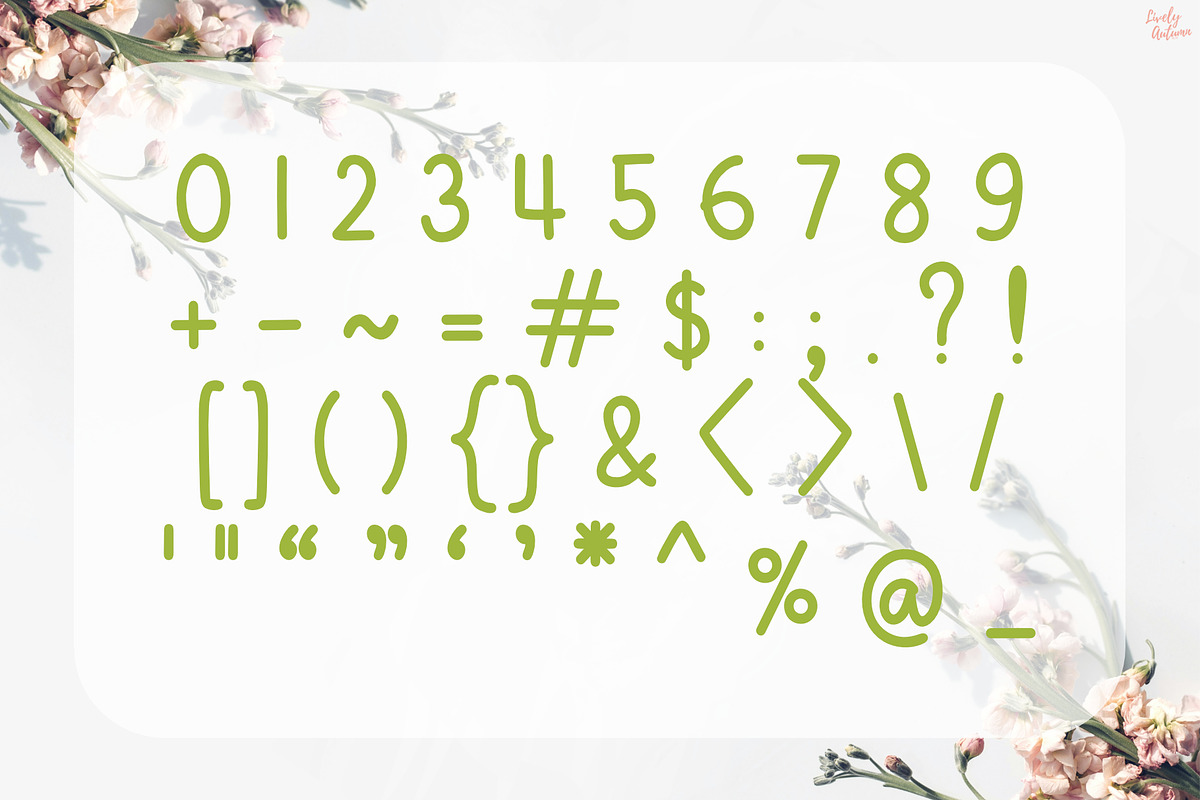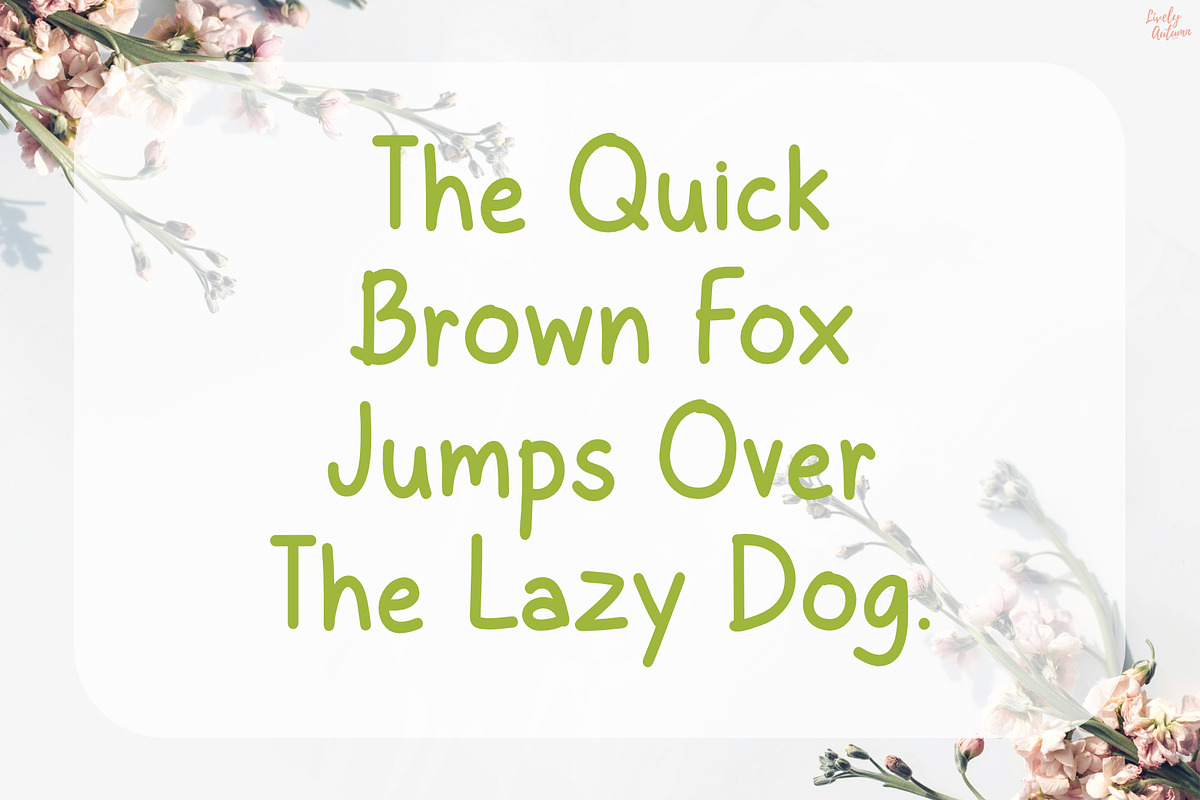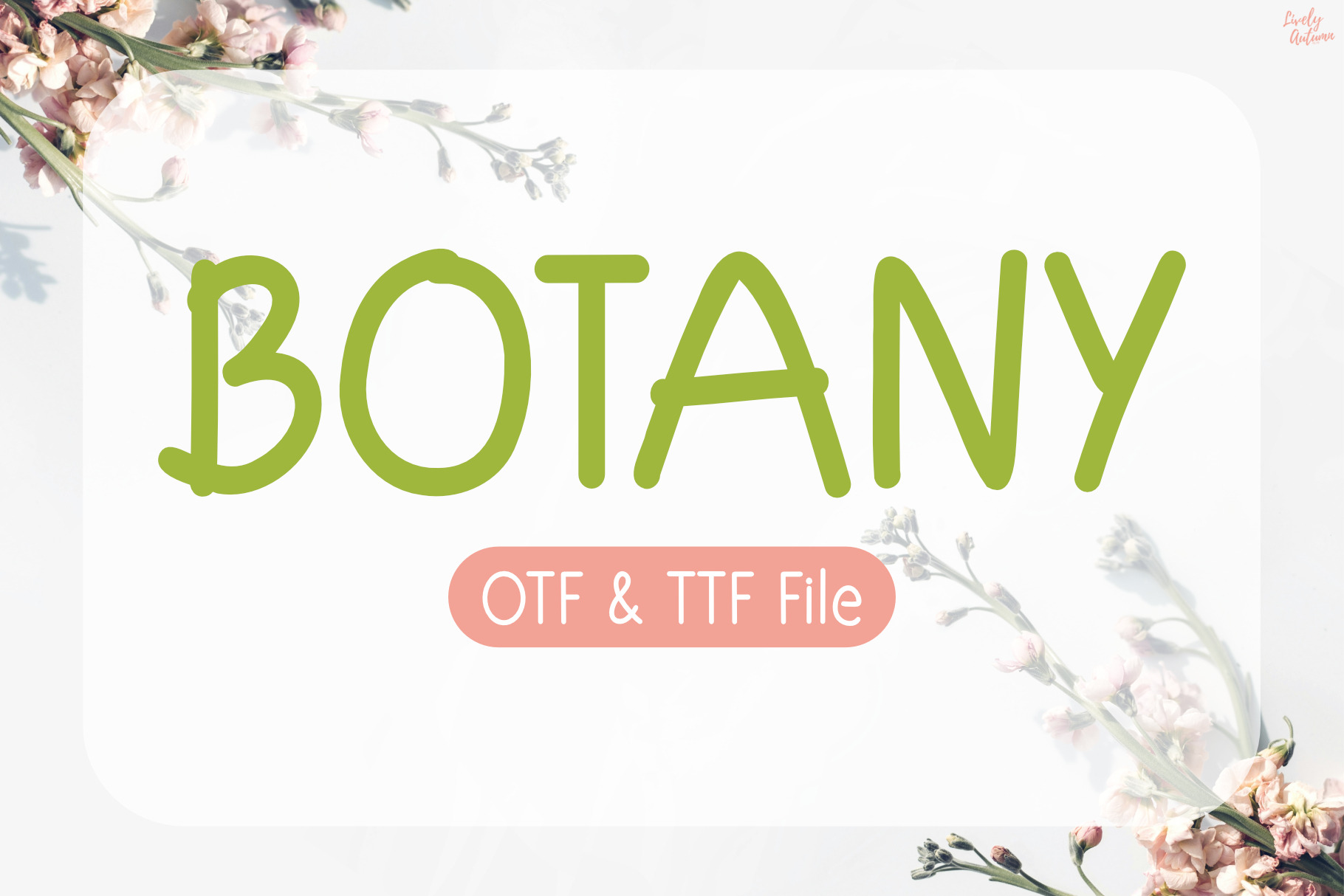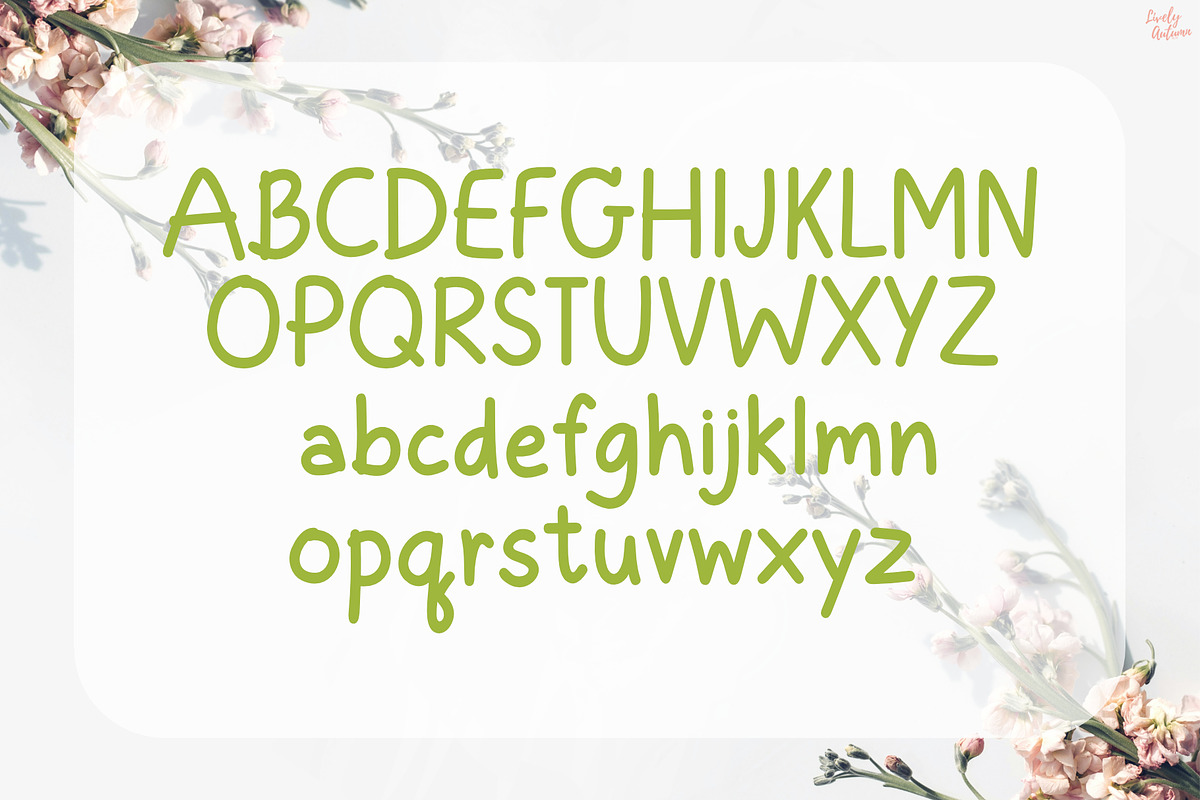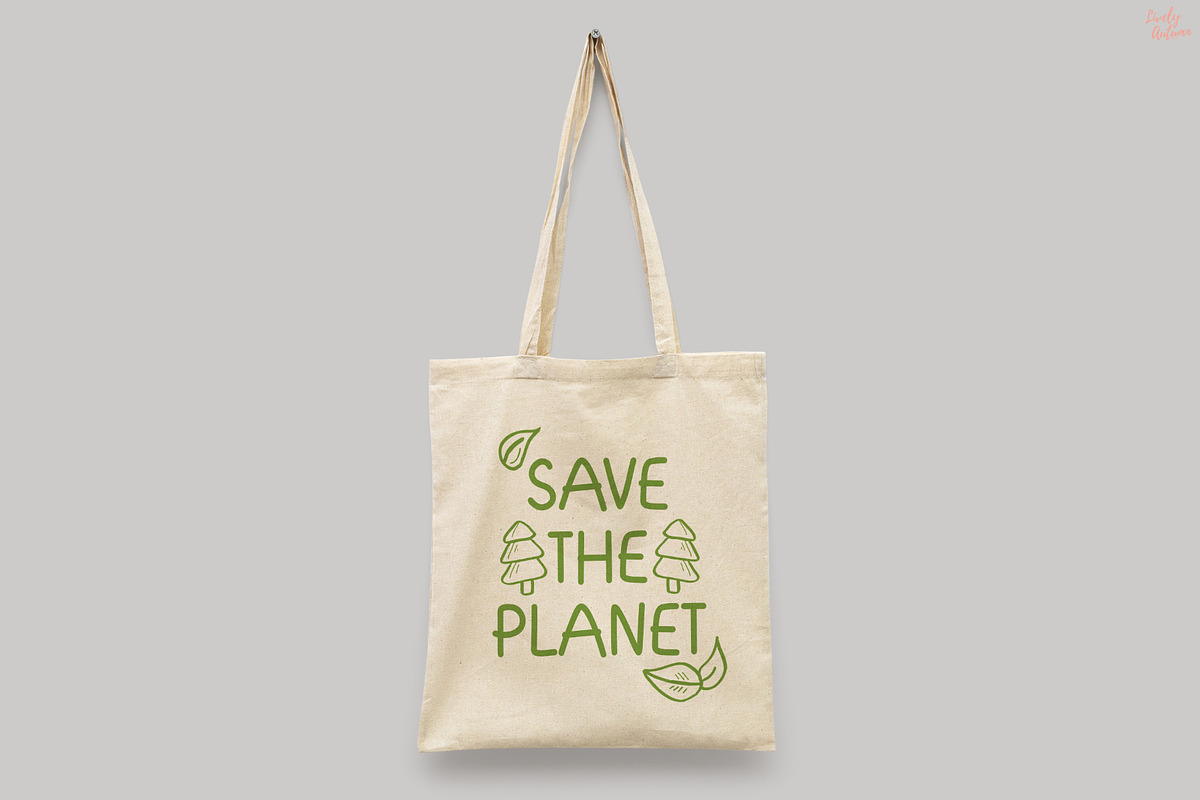
Botany | Handwriting Font
Botany Font is a cute handwritten font. Perfect for your personal projects and various projects. From invitations to posters, social media graphics, journals, and much more.
- Font includes: uppercase, lowercase, numbers, and punctuation